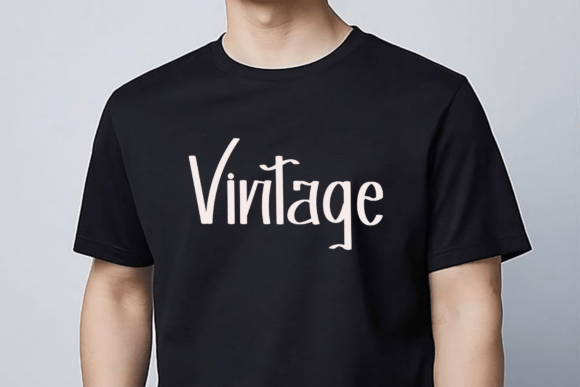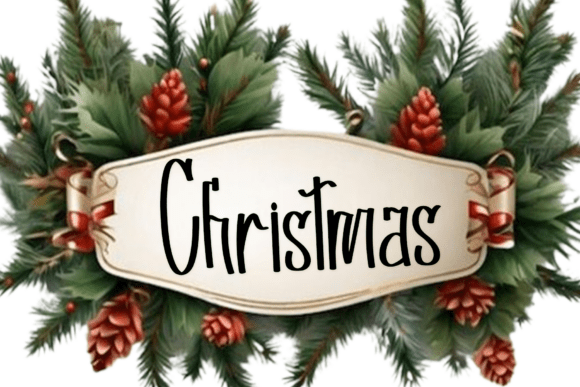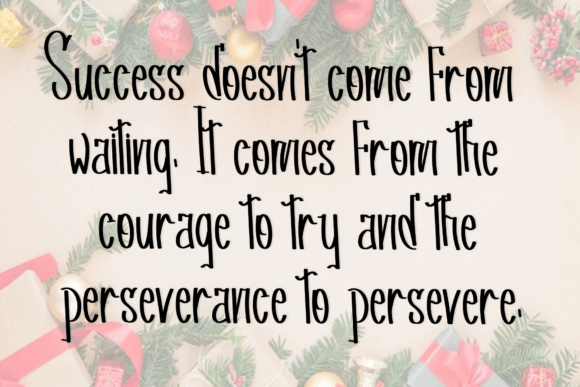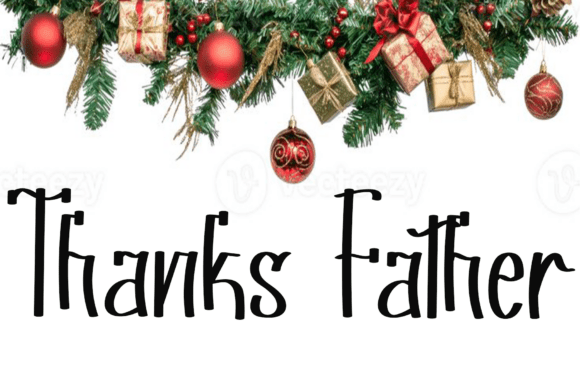
Seasonal Magic: Hello Christmas Font – Celebrate the Most Wonderful Time of the Year
The holiday season is upon us, and with it comes the excitement of creating festive and engaging content that captures the spirit of Christmas. For designers, crafters, and marketers, finding the perfect font to convey the joy and magic of the season can be a challenge. That’s where the Hello Christmas font comes in – a beautiful, modern handwritten typeface that’s sure to add a touch of whimsy and professionalism to your holiday projects.
Introducing Hello Christmas Font
Part of the Modern Handwritten Collection, the Hello Christmas font is designed to bring a playful and festive feel to your designs. With its unique blend of playful heights and sharp, decorative flourishes, this typeface perfectly captures the excitement and wonder of winter celebrations. Whether you’re creating holiday greeting cards, festive event flyers, or seasonal social media campaigns, Hello Christmas is the perfect choice to add a joyful “sparkle” to your message.
Key Features of Hello Christmas Font
- Modern Handwritten Style: Hello Christmas boasts a fresh and modern handwritten style that’s perfect for creating festive and engaging content.
- Playful Heights: The font’s playful heights add a touch of whimsy and fun to your designs, making them perfect for holiday projects.
- Sharp Decorative Flourishes: The font’s sharp, decorative flourishes add a level of sophistication and elegance to your designs, making them perfect for professional applications.
- Versatile: Hello Christmas is a versatile font that can be used for a wide range of applications, from holiday greeting cards to festive event flyers and social media campaigns.
Uses for Hello Christmas Font
The Hello Christmas font is perfect for a wide range of holiday projects, including:
- Holiday Greeting Cards: Add a personal touch to your holiday greeting cards with the Hello Christmas font.
- Festive Event Flyers: Create eye-catching and festive event flyers that capture the spirit of the season.
- Seasonal Social Media Campaigns: Add a touch of festive magic to your social media campaigns with the Hello Christmas font.
- Christmas Party Invitations: Create fun and festive Christmas party invitations that set the tone for a joyful celebration.
- Holiday Blog Posts: Add a touch of whimsy and festivity to your holiday blog posts with the Hello Christmas font.
Tips for Using Hello Christmas Font
To get the most out of the Hello Christmas font, here are a few tips to keep in mind:
- Experiment with Font Sizes: Play around with different font sizes to create visual interest and emphasis in your designs.
- Combine with Other Fonts: Combine Hello Christmas with other fonts to create a unique and visually appealing typography scheme.
- Use Decorative Flourishes: Make the most of the font’s decorative flourishes by using them to add a touch of elegance and sophistication to your designs.
The Hello Christmas font is a beautiful and versatile typeface that’s perfect for adding a touch of festive magic to your holiday projects. With its modern handwritten style, playful heights, and sharp decorative flourishes, this font is sure to capture the spirit of the season and bring joy to your designs. Whether you’re a designer, crafter, or marketer, Hello Christmas is a must-have font for the holiday season.